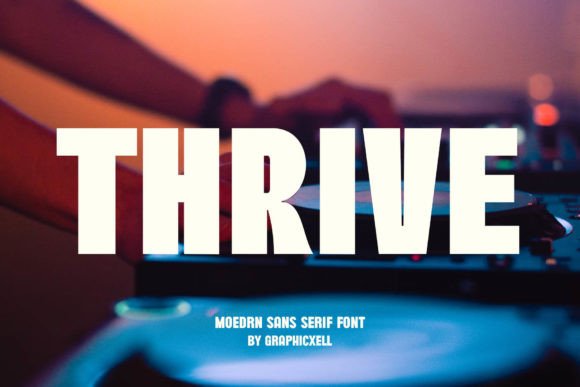
Unleash the power of expression with Thrive Font, the epitome of clarity and elegance in the world of digital typography. This sans serif masterpiece crafted by Graphicxell is more than just a font; it's an invitation to redefine your creative boundaries.
Thrive Font's clean lines and understated sophistication make it the perfect choice for printed text, adding a touch of timeless allure to your designs. Its versatility shines through in a myriad of applications, from templates and brochures to advertisements and logos. Whether you're a seasoned designer or just starting your creative journey, Thrive Font is your gateway to captivating visuals and impactful messaging.
Immerse yourself in the world of Thrive Font, where simplicity meets refinement. Its carefully balanced letterforms dance across the page, creating a symphony of visual delight. Experience the joy of crafting elegant invitations and layout designs, where every element harmonizes perfectly. Bring your beauty designs to life with Thrive Font, and let your creativity flourish like never before.
With Thrive Font, your designs will transcend the ordinary and capture the hearts of your audience. Its minimalist charm adds a touch of sophistication to branding, making your logos and advertising materials stand out from the crowd. Thrive Font is your key to unlocking the full potential of your creative vision, turning ideas into tangible expressions of beauty.
Embrace the essence of Thrive Font, and embark on a journey of design excellence. Let your imagination soar as you create stunning brochures that captivate readers and leave a lasting impression. Design templates that are both functional and aesthetically pleasing, seamlessly blending form and function. Elevate your videos and advertising campaigns with Thrive Font, and leave an indelible mark on your audience.
Thrive Font is not just a font; it's an experience. A fusion of clarity and grace, it elevates your designs to new heights of sophistication. Join the ranks of creative visionaries who have embraced Thrive Font, and witness the transformative power of great typography.